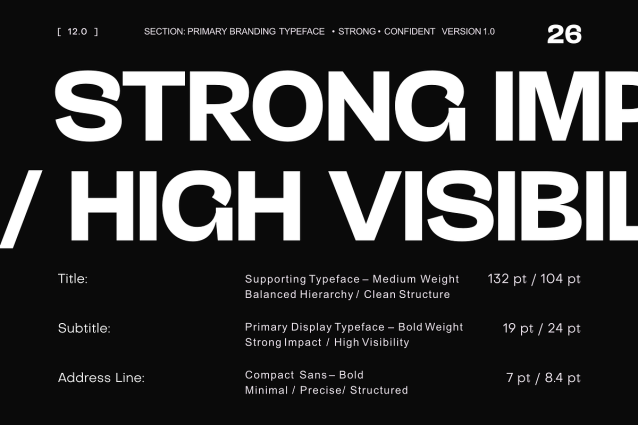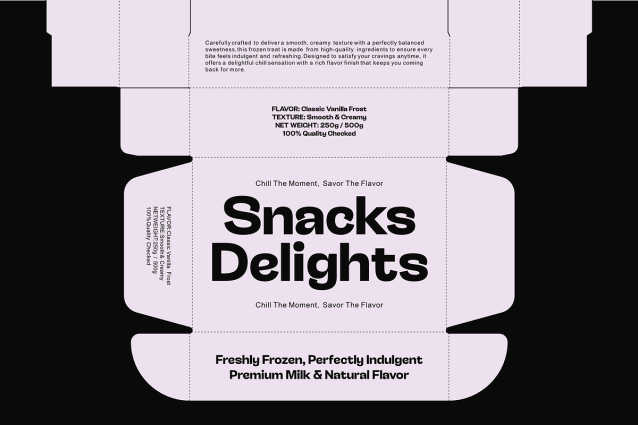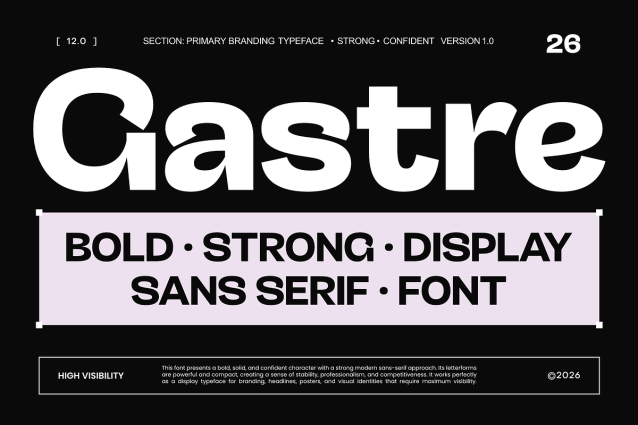
Gastr-Trial Font
Gastr-Trial Font is made for creators and brands who want to feel approachable and genuinely human. As a Bold Display Sans Serif, it delivers strong visual clarity with a relaxed, and friendly character — designed to include everyone.With its welcoming and casual nature, Gastre helps brands build honest emotional connections without feeling stiff or out of reach. Every letterform is crafted to make people feel like they truly belong.Perfect for food & beverage and lifestyle brands — from product packaging and event posters to social media content — Gastre becomes a consistent, friendly voice across every touchpoint.